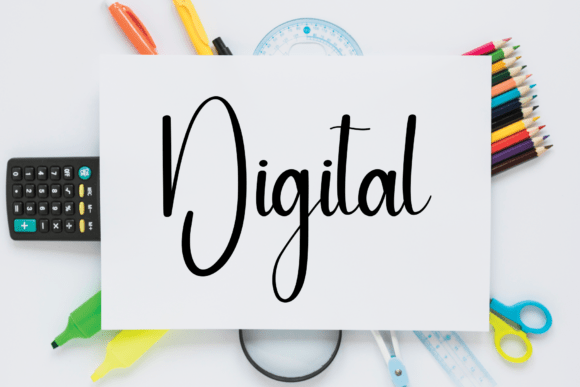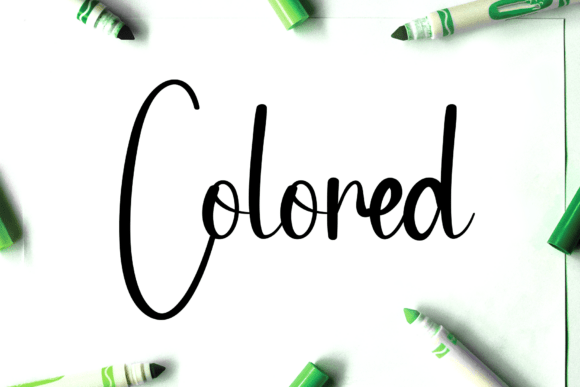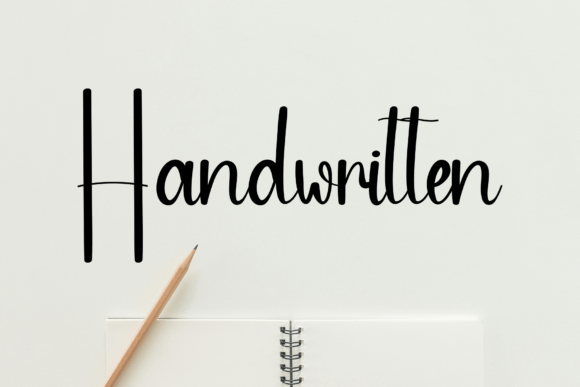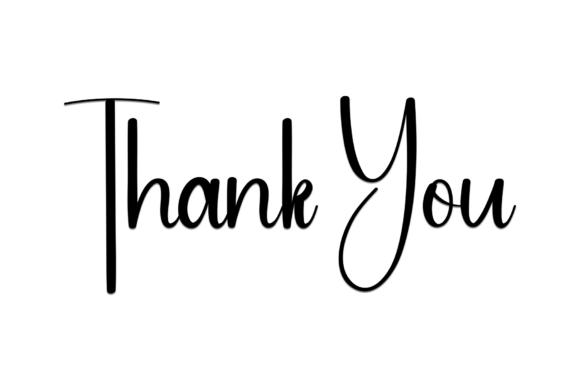
Disney Font: The Ultimate Guide to this Luxurious yet Casual Handwritten Font
Are you a designer or crafter looking for a font that exudes luxury and elegance while still having a relaxed and casual vibe? Look no further than the Disney font. This beautiful handwritten font is reminiscent of marker-drawn letters and is perfect for a wide range of design projects. In this article, we’ll dive into the world of Disney font, exploring its characteristics, uses, and benefits.
What is Disney Font?
Disney font is a type of handwritten font that looks like it was drawn with a marker. Its relaxed and sporty feel makes it an excellent choice for designs that require a touch of luxury and elegance without being too formal. The font’s casual nature makes it perfect for a wide range of applications, from branding and logos to wedding supplies, greeting cards, and marketing promotions.
Characteristics of Disney Font
So, what makes Disney font so unique? Here are some of its key characteristics:
- Handwritten feel: Disney font has a beautiful, handwritten feel that gives it a personal and human touch.
- Marker-drawn look: The font’s marker-drawn look gives it a relaxed and casual vibe that’s perfect for designs that require a sporty feel.
- Luxurious and elegant: Despite its casual nature, Disney font exudes luxury and elegance, making it perfect for high-end designs.
Uses of Disney Font
Disney font is incredibly versatile and can be used in a wide range of design projects, including:
- Branding and logos: Disney font is perfect for creating luxurious and elegant brand identities that still have a relaxed and casual vibe.
- Wedding supplies: The font’s elegant and sophisticated nature makes it perfect for wedding stationery, invitations, and other wedding-related designs.
- Greeting cards: Disney font is great for creating beautiful and heartfelt greeting cards for special occasions.
- Fashion and lookbooks: The font’s luxurious and elegant nature makes it perfect for fashion designs, lookbooks, and marketing promotions.
Benefits of Using Disney Font
So, why should you choose Disney font for your design projects? Here are some of its benefits:
- Unique and eye-catching: Disney font is a unique and eye-catching font that will make your designs stand out from the crowd.
- Versatile: The font’s versatility makes it perfect for a wide range of design projects, from branding and logos to wedding supplies and greeting cards.
- Elegant and sophisticated: Disney font exudes luxury and elegance, making it perfect for high-end designs.
Tips for Using Disney Font
Here are some tips for using Disney font in your design projects:
- Use it sparingly: Disney font is a beautiful font, but it can be overwhelming if used too much. Use it sparingly to create a focal point in your design.
- Pair it with other fonts: Disney font pairs well with other fonts, such as sans-serif fonts. Experiment with different font combinations to find the perfect look for your design.
- Experiment with colors: Disney font looks great in a variety of colors. Experiment with different colors to find the perfect look for your design.
In conclusion, Disney font is a beautiful and versatile handwritten font that’s perfect for a wide range of design projects. Its relaxed and sporty feel, combined with its luxurious and elegant nature, make it an excellent choice for designers and crafters looking to create high-end designs. With its unique and eye-catching look, Disney font is sure to make your designs stand out from the crowd.
Whether you’re a designer or crafter, Disney font is a great addition to your font collection. So, next time you’re looking for a font that exudes luxury and elegance while still having a relaxed and casual vibe, consider using Disney font.